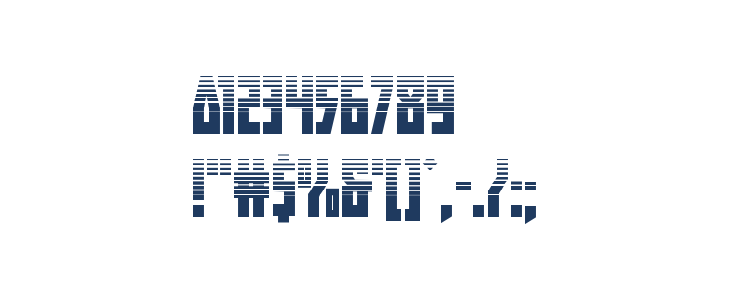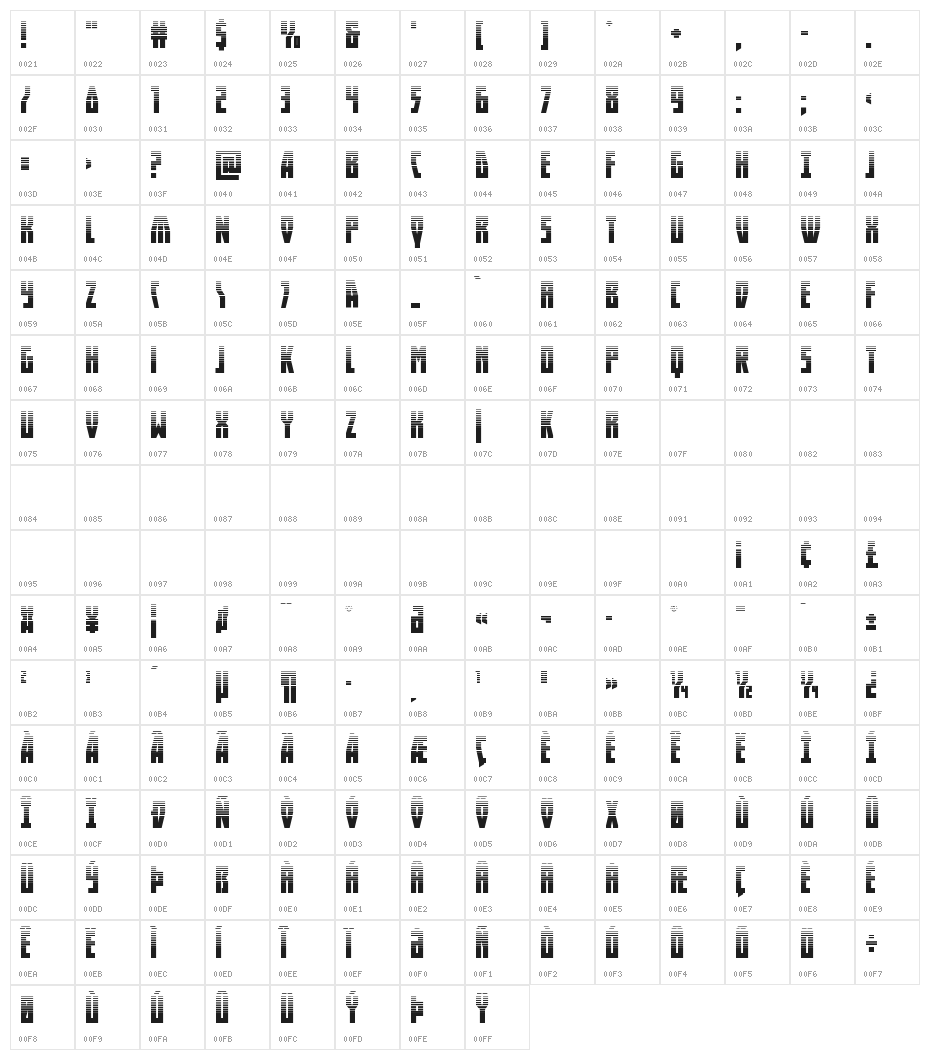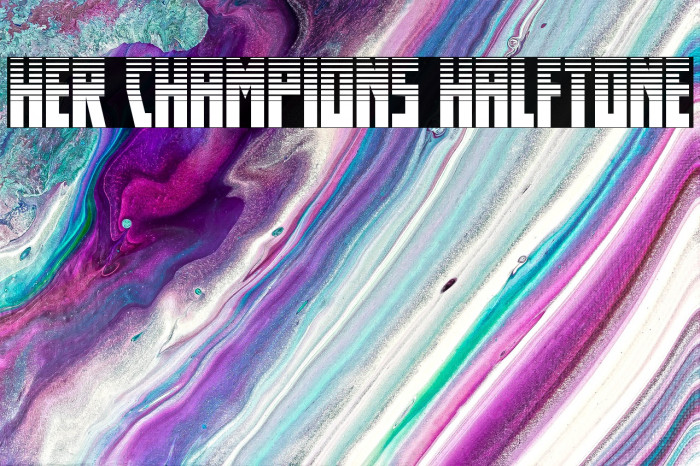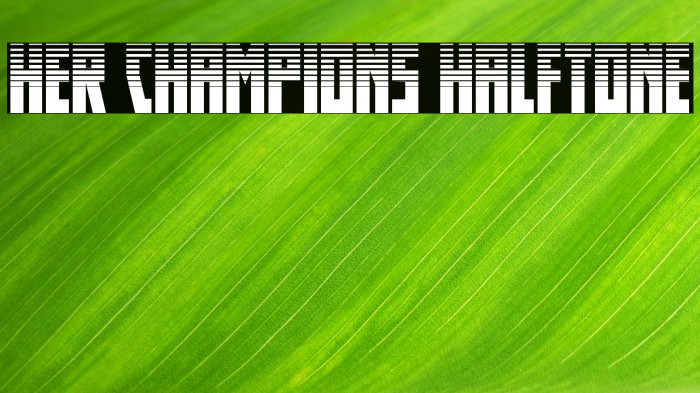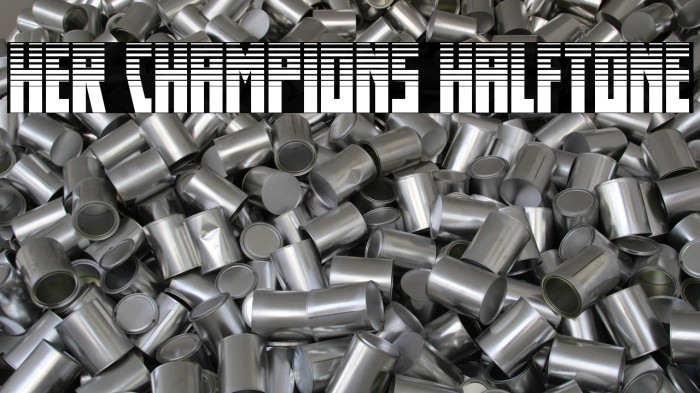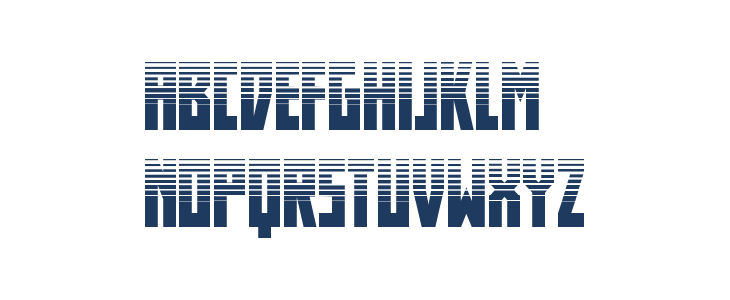
Her Champions Halftone Font
Her Champions Halftone Description
This font features a striking, bold design with a halftone effect that creates a sense of movement and energy. The uppercase letters are characterized by horizontal lines that gradually increase in thickness, giving a dynamic and layered appearance. The overall structure is geometric and blocky, with sharp angles and a modern aesthetic. The numbers and special characters follow the same design principles, ensuring consistency across all elements. This font is visually impactful and commands attention, making it ideal for projects that require a strong visual presence.
| Proposed Projects | Ideal for posters, headlines, sports branding, and any project needing a bold, energetic typeface. |